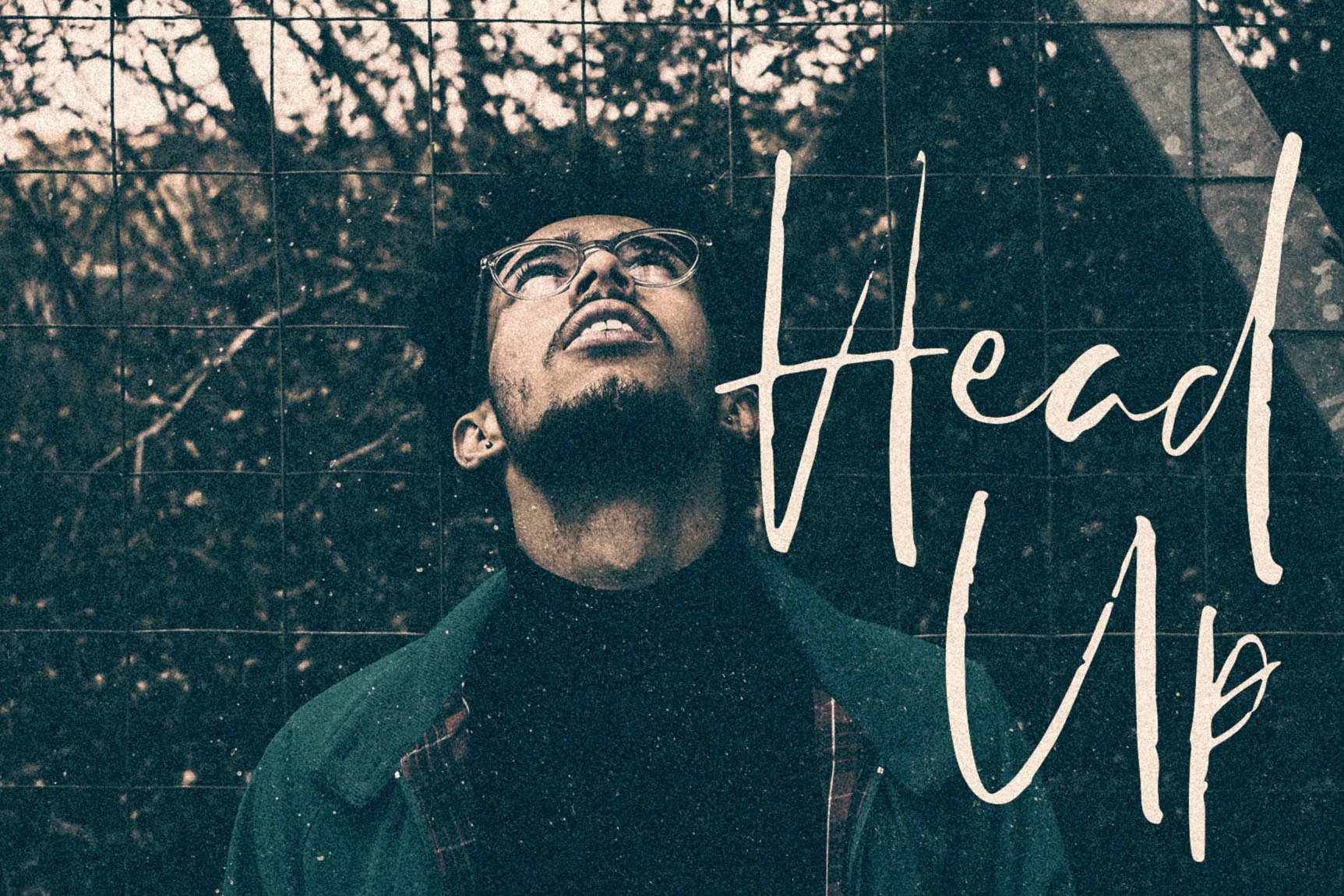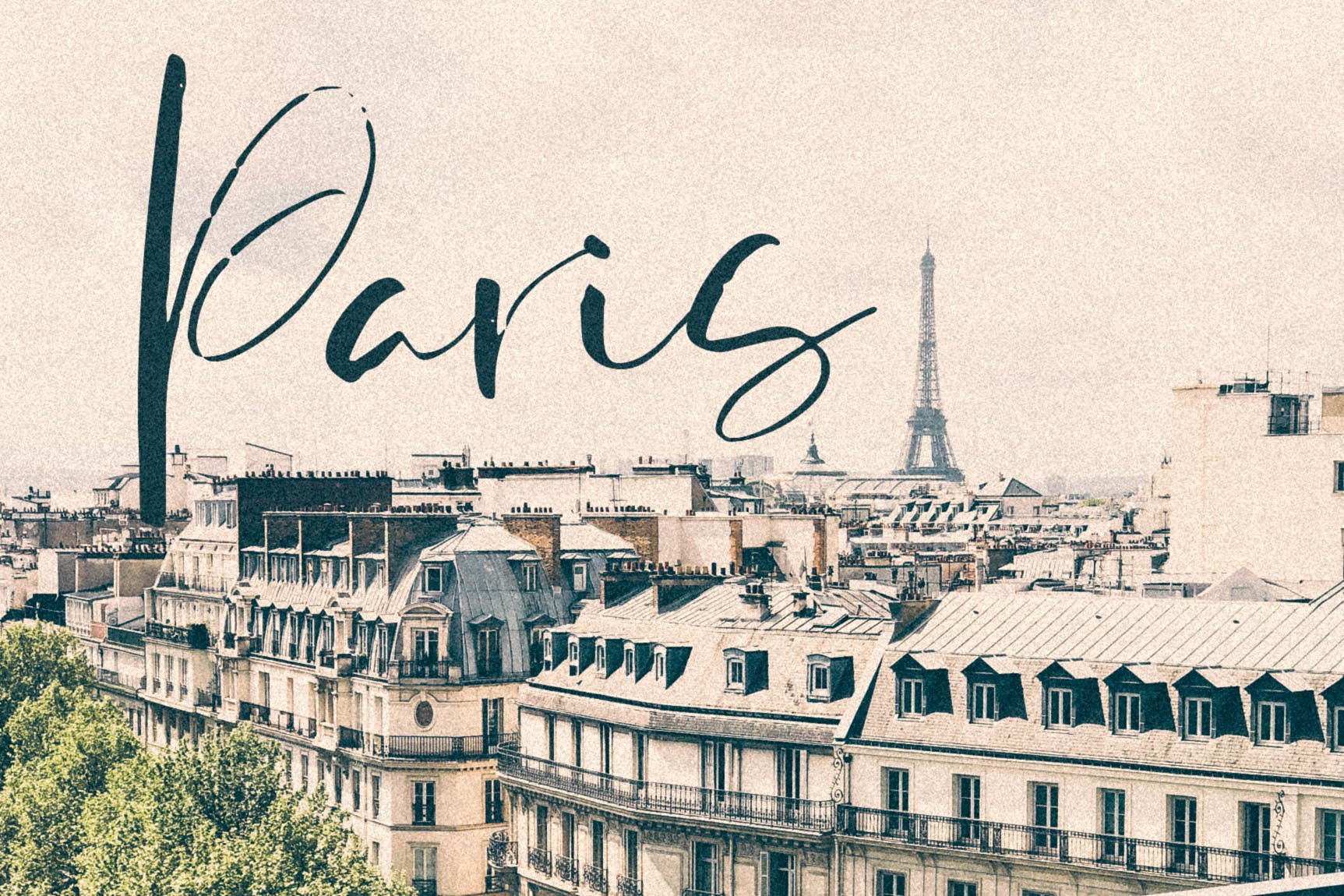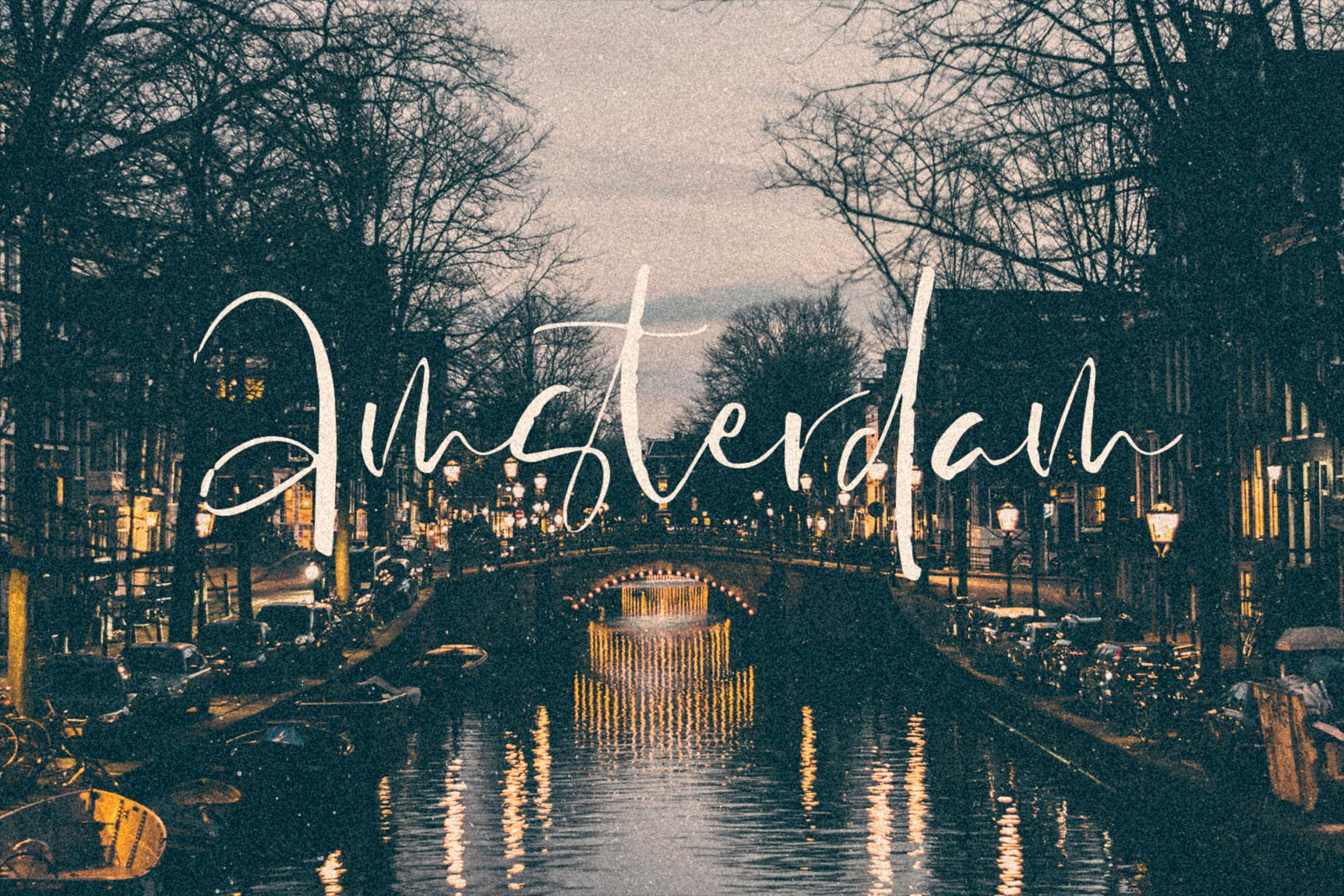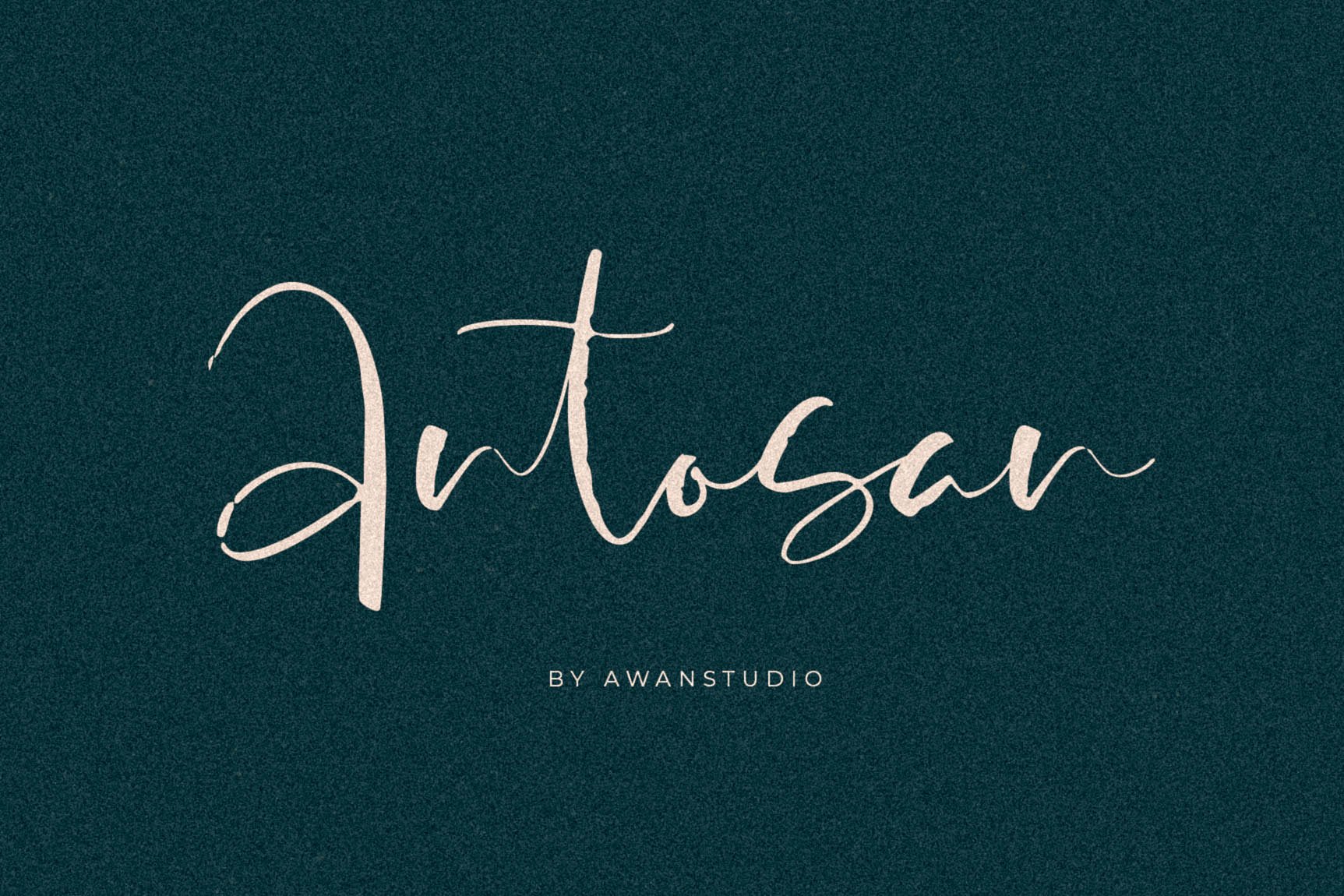
Antosan Script Font
Introducing Antosan Font. A rough handwritten font. You can create perfect and unique designs from this font. It is was designed by awan studio. Antosan! It allows you to create stunning and easy hand-lettering in an instant. Ideal for the logo, quotes, wedding, product label/packaging, fashion, letter, advertising, invitation, poster, merchandise, greeting cards, etc.